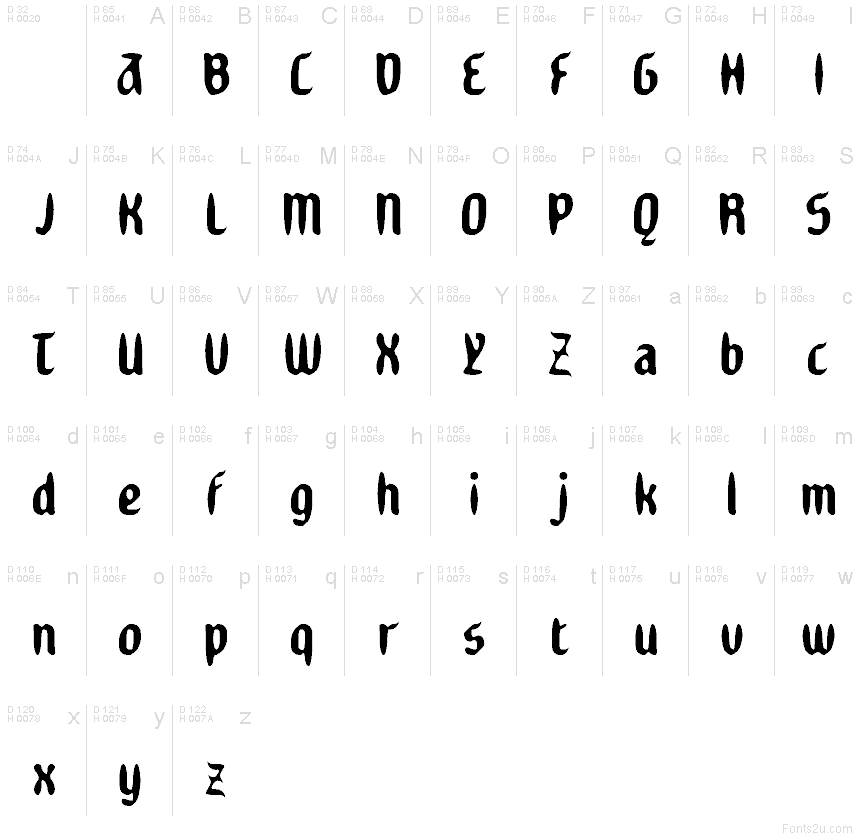
CSHowardDrawn-Regular Demo
CS Howard Drawn font by Craft Supply Co. is a beautiful display typeface with condensed letters and irregular contours. Its hand-drawn appearance is supported by the faded natural ink textures and the distorted organic feel of the shapes making the overall impression very artistic. Retro influence is visible through all characters especially round ones.